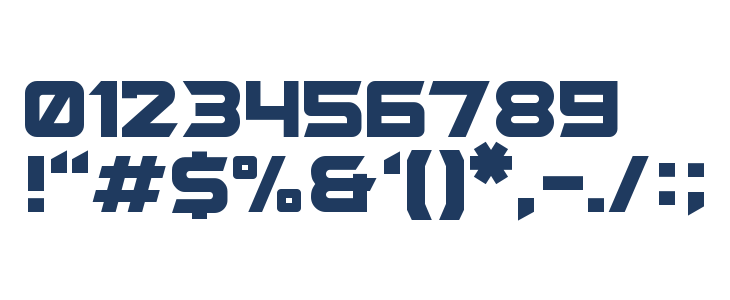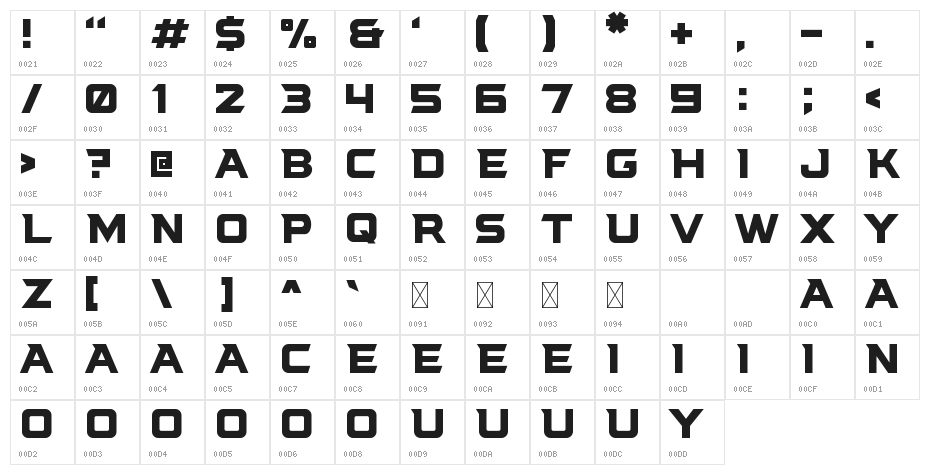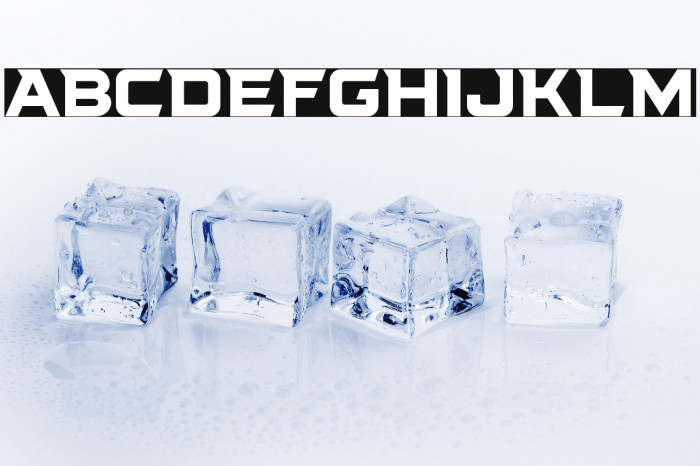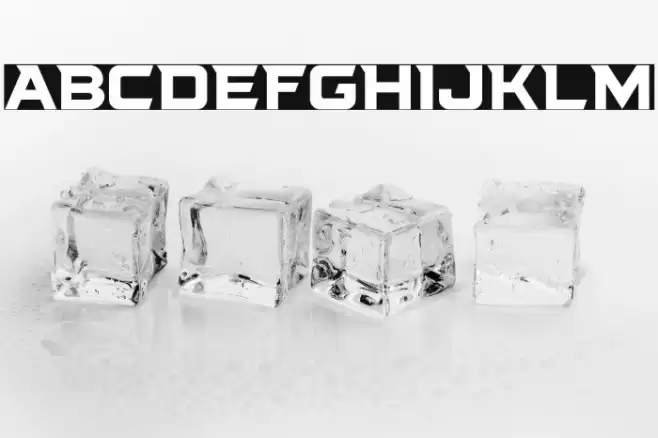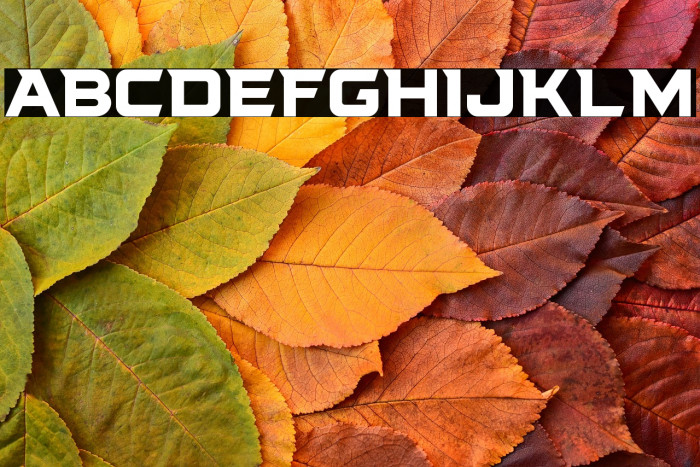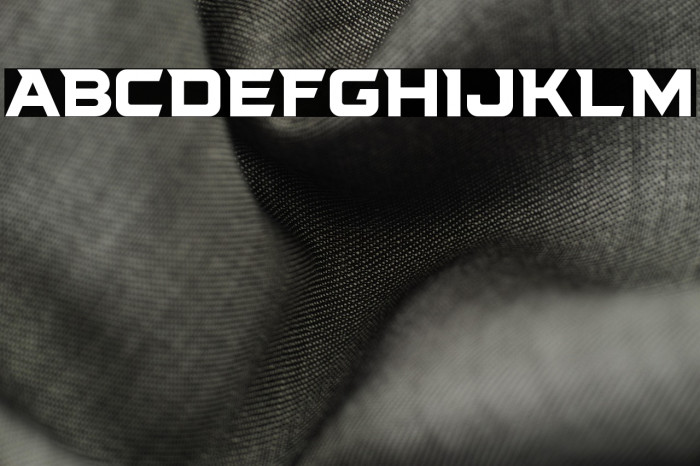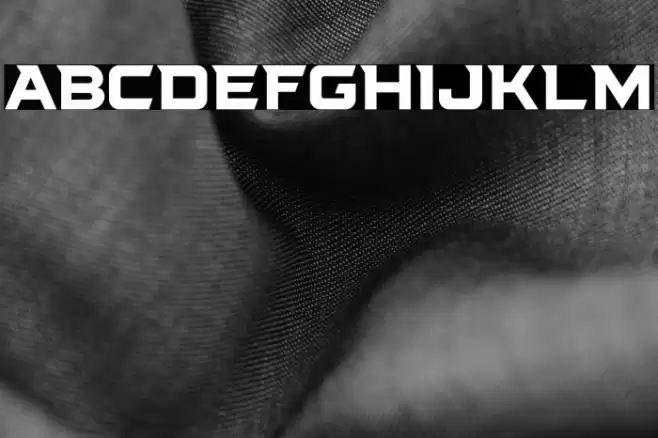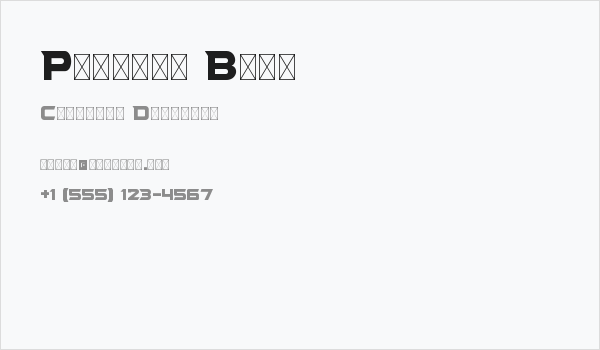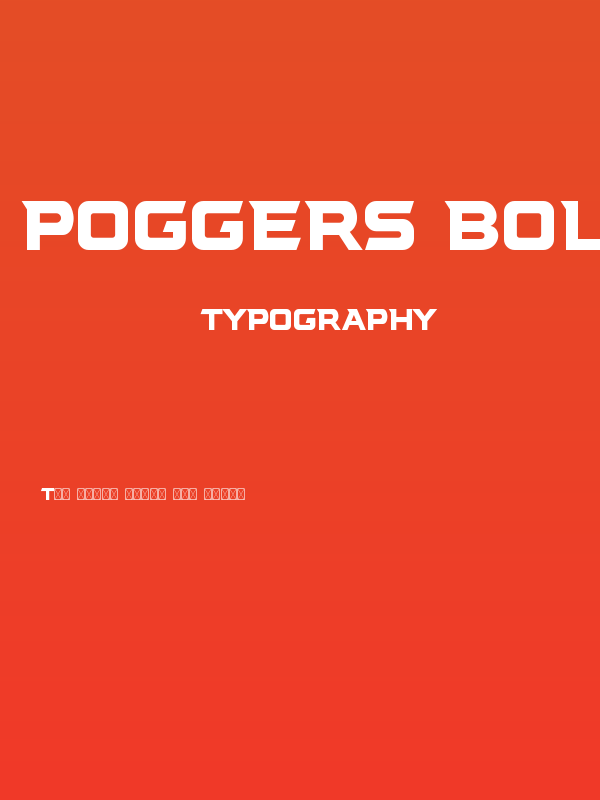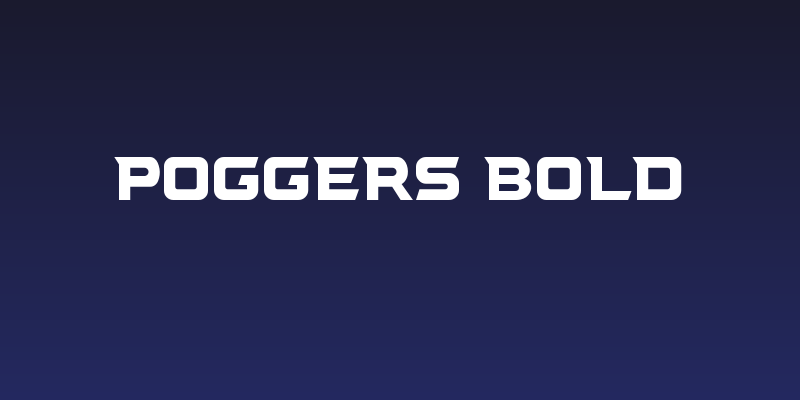
Poggers Bold Font
Poggers Bold Description
This font features a bold and assertive style with strong geometric shapes and sharp angles. The characters are designed with a modern aesthetic, showcasing a uniform thickness that emphasizes its boldness. The uppercase letters are particularly striking, with a consistent height and width that create a cohesive look. The numerals and special characters maintain the same bold characteristics, ensuring readability and impact. This font is ideal for projects that require a strong visual presence.